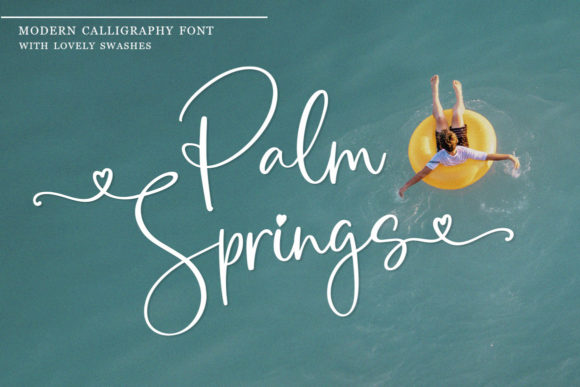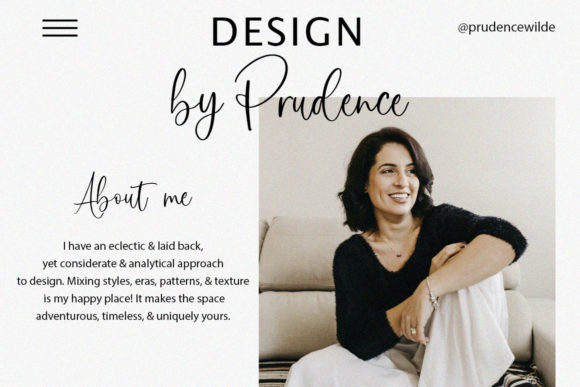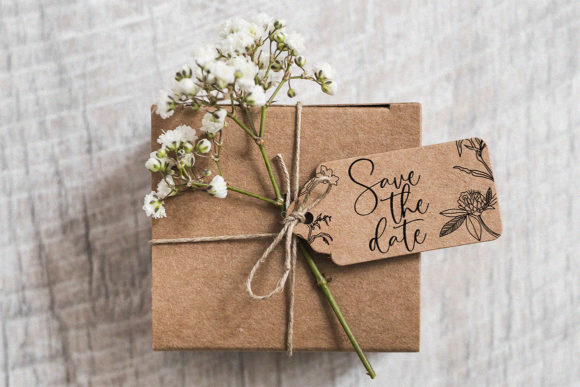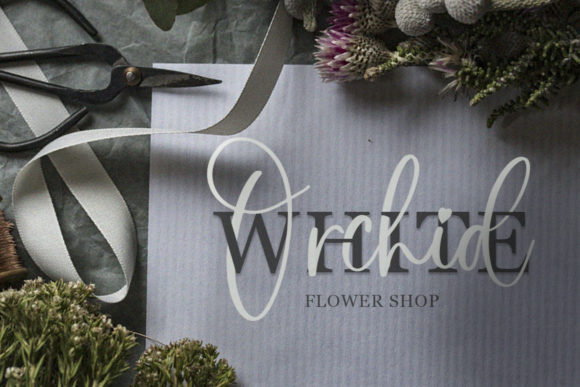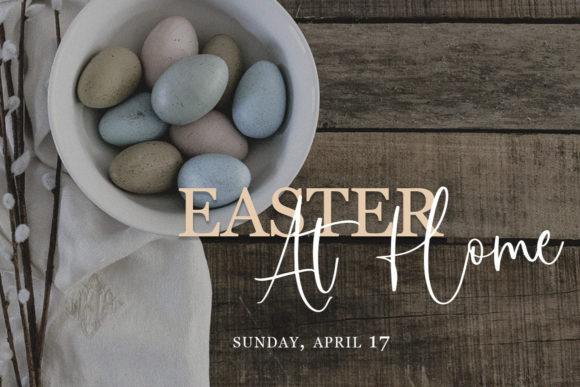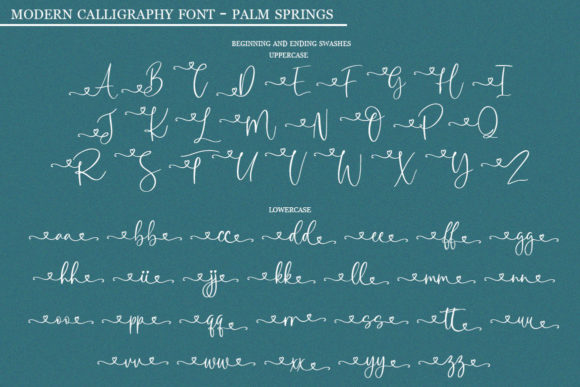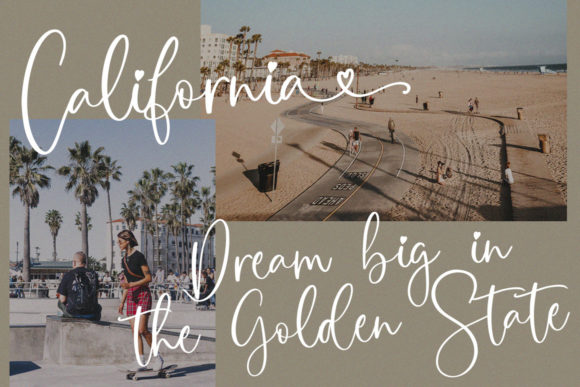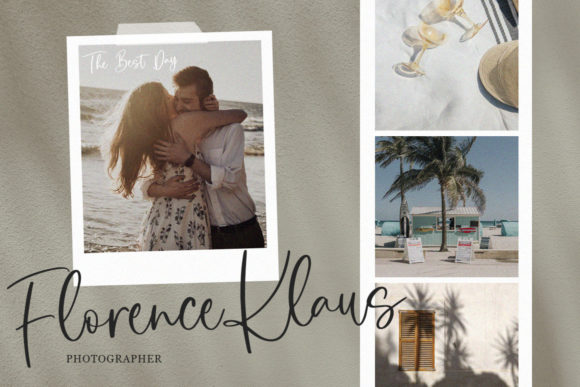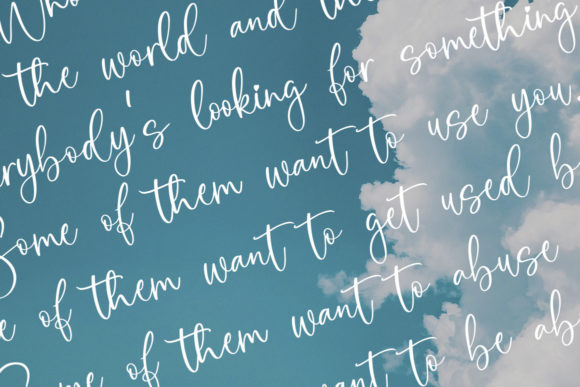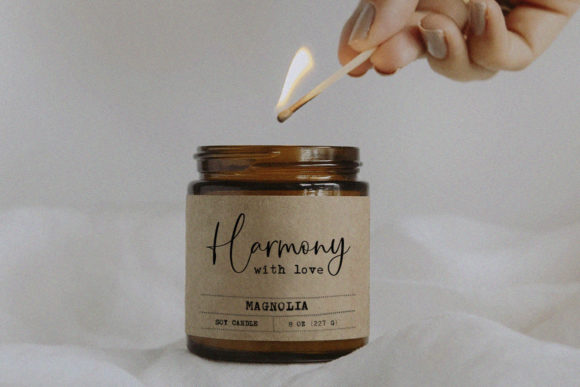
Palm Springs Font
About Palm Springs Font
“Palm Springs” is more than just a font—it’s a romantic and modern calligraphy typeface that exudes sophistication and charm. With its characters dancing along the baseline, this font adds a unique and elegant touch to any design project.
The casual yet elegant style of “Palm Springs” makes it the perfect choice for creating eye-catching logos, branding, and quotes that leave a lasting impression. Its fluid strokes and graceful curves evoke a sense of luxury and refinement, making it ideal for projects seeking a touch of glamour and elegance.
One of the standout features of “Palm Springs” is its ability to add a luxury spark to any design project. Whether used for wedding invitations, packaging, social media graphics, or any other creative endeavor, this font elevates your designs to new heights of sophistication and allure.
Moreover, “Palm Springs” is designed with practicality in mind. Its well-crafted letterforms ensure readability across various mediums and platforms, ensuring your message is effectively communicated to your audience.
In summary, “Palm Springs” is more than just a font—it’s a versatile and elegant tool that empowers designers to create stunning and memorable designs with ease. Whether you’re aiming for romance, modernity, or a touch of luxury, this font delivers, making it the perfect choice for your next project.